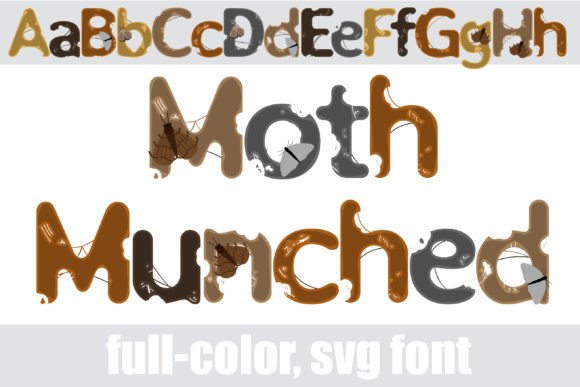
Embark on a captivating journey with Moth Munched Font, a kaleidoscope of colors and artistic brilliance. This family of full-color SVG fonts is an oasis of creativity, offering endless possibilities for your design endeavors. Picture a font that speaks volumes, with its grungy sans serif, moths fluttering around letters, intricate webbing, and chewed-out elements. It's a visual symphony that breathes life into your designs.
Dive into a world where fonts dance with vibrant hues. Moth Munched Font comes alive in all its glory in compatible programs, showcasing a kaleidoscope of colors that will ignite your imagination. Witness the magic as your words transform into artistic wonders, captivating your audience with every stroke.
Unleash your creativity and let Moth Munched Font take center stage. Whether you're designing logos, branding, web pages, or print materials, this font family becomes your ally. Its versatility knows no bounds, allowing you to craft designs that speak to your soul.